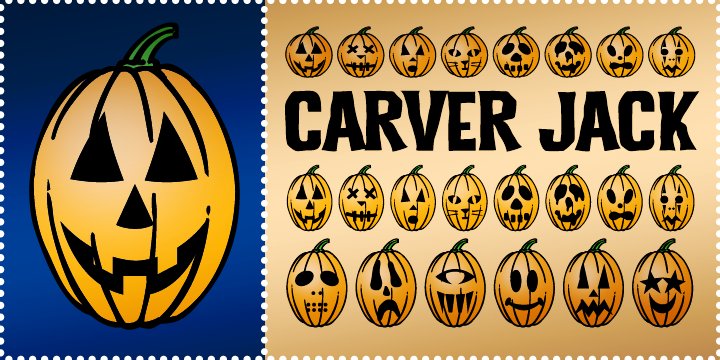
Carver Jack BTN
Designed by: Brian J. Bonislawsky
Designed when: 2003
Design owned by: Breaking the Norm
Carver Jack BTN
Carver Jack is a dingbat typeface loaded with Wide and Narrow carved Jack O' Lanterns.
The perfect typeface for setting up party invitations as well as getting some pumpkin carving ideas.